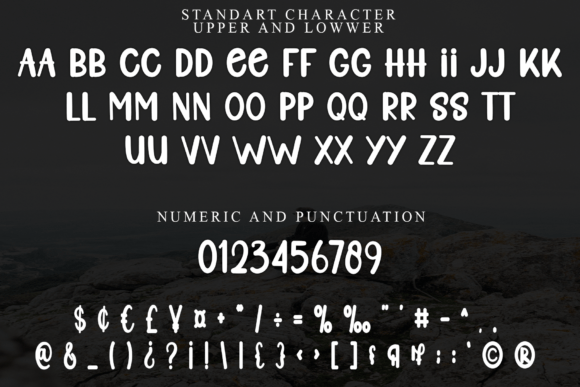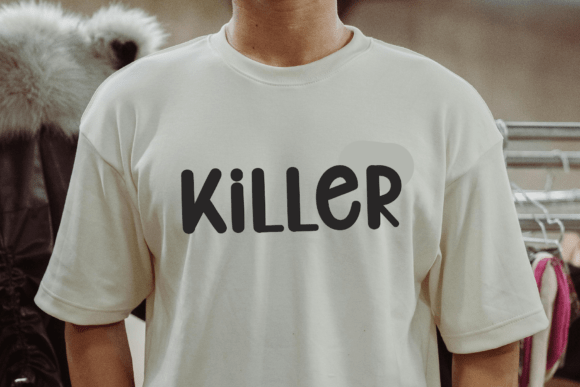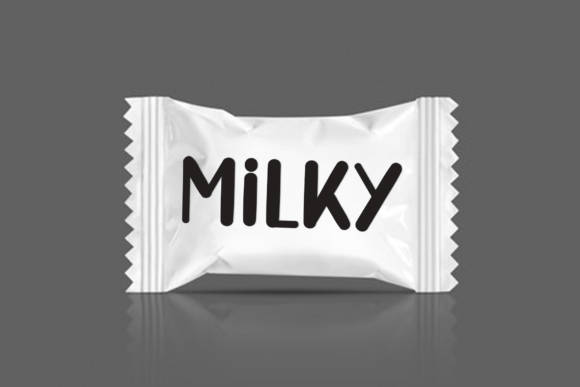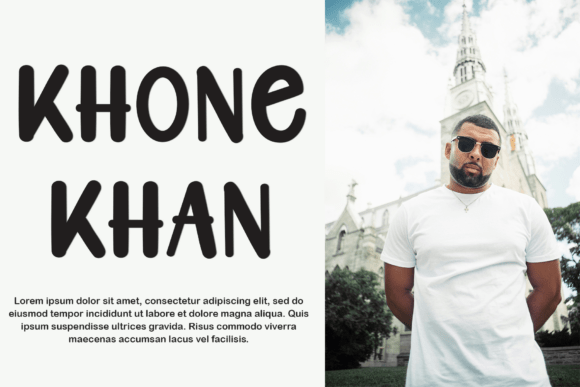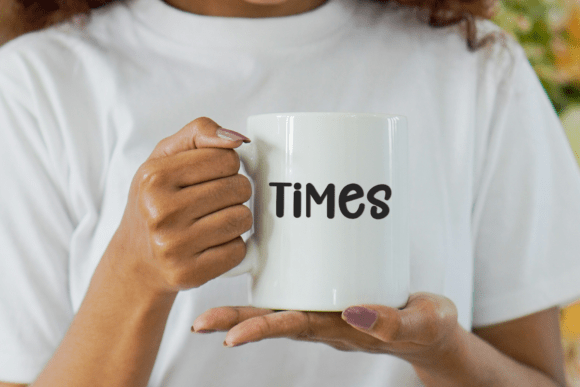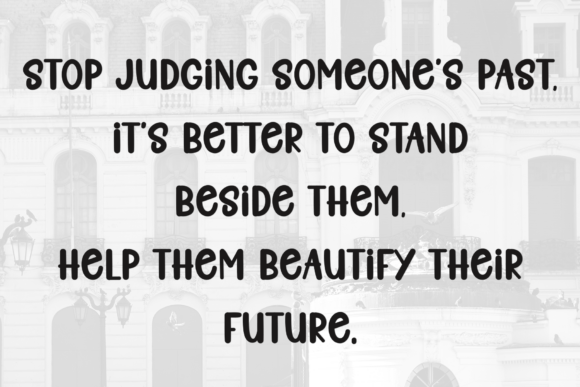
Introducing Designer Present Font: Elevate Your Designs with a Unique Touch
In the world of design, fonts play a crucial role in conveying messages, evoking emotions, and creating a lasting impression. If you’re a designer, crafter, or creative enthusiast looking for a font that stands out from the crowd, look no further than Designer Present Font. This beautiful and eye-catching font is designed with a soft, unique touch that will add a special character to your projects, making them truly unforgettable.
The Distinctive Features of Designer Present Font
Designer Present Font boasts distinctive strokes that give it a special character, making it meaningful and versatile for future use. Its unique design ensures that your designs will have a personal touch, setting them apart from the ordinary. Whether you’re working on a logo, branding materials, crafts, or other creative projects, this font is sure to make a statement.
A World of Creative Possibilities
One of the best things about Designer Present Font is its versatility. With a wide range of characters, you can experiment with different styles, sizes, and combinations to create unique and captivating designs. This font is perfect for:
- Design projects: logos, branding materials, posters, and more
- Crafts: handmade cards, gift tags, and DIY projects
- Creative works: art, illustrations, and mixed media
The Benefits of Using Designer Present Font
So why choose Designer Present Font for your next project? Here are just a few benefits:
- Unique and eye-catching designs: Stand out from the crowd with a font that’s truly one-of-a-kind.
- Versatility: Use it for a wide range of projects, from design and crafts to art and mixed media.
- Natural and organic feel: Add a personal touch to your designs with a font that feels natural and authentic.
Who Can Benefit from Designer Present Font?
Designer Present Font is perfect for:
- Graphic designers looking for a unique font to add to their collection
- Crafters and DIY enthusiasts who want to add a personal touch to their projects
- Artists and illustrators seeking a font that complements their work
- Small business owners and entrepreneurs who want to create a distinctive brand identity